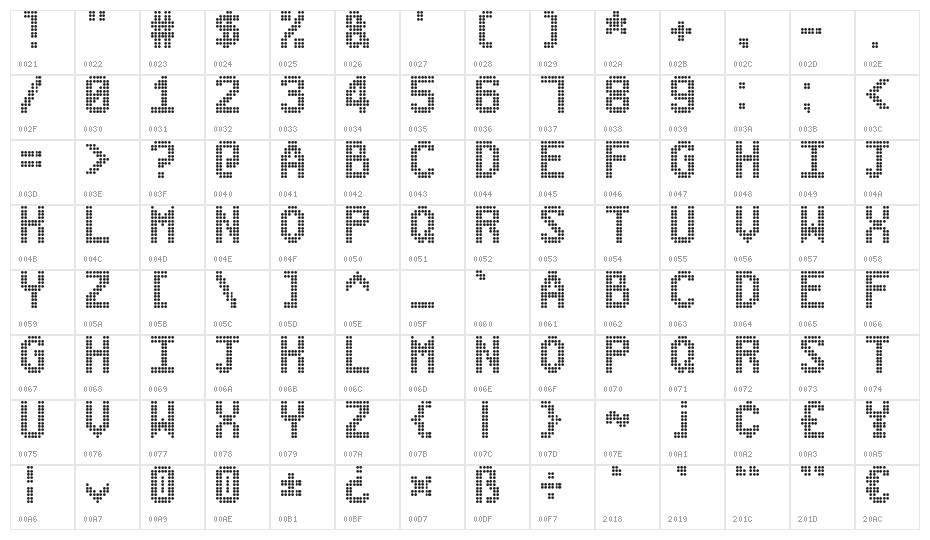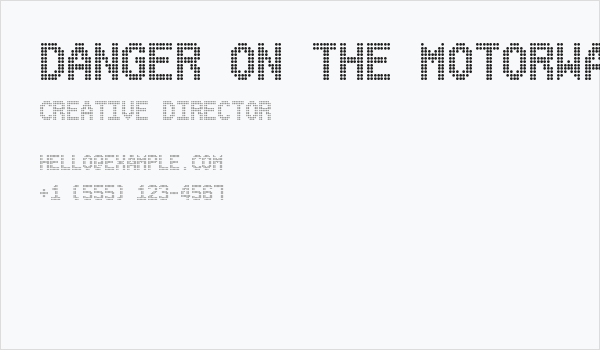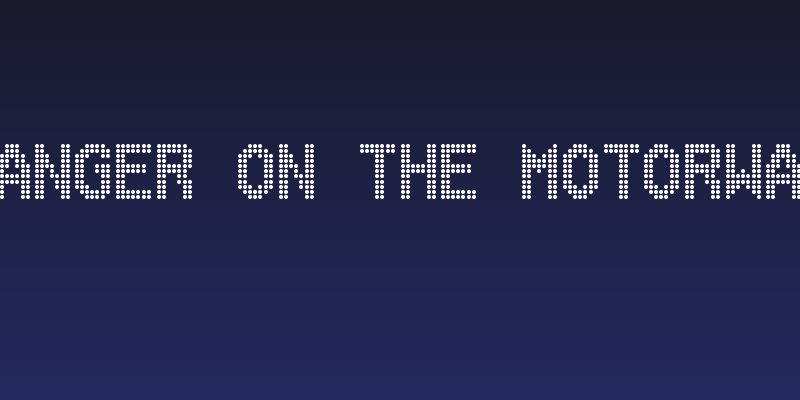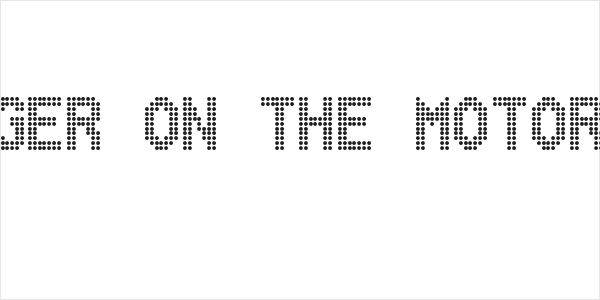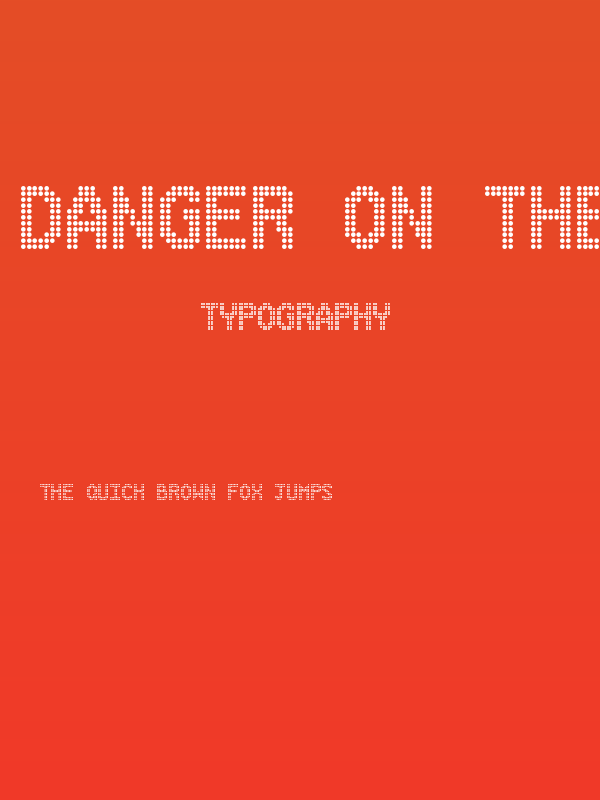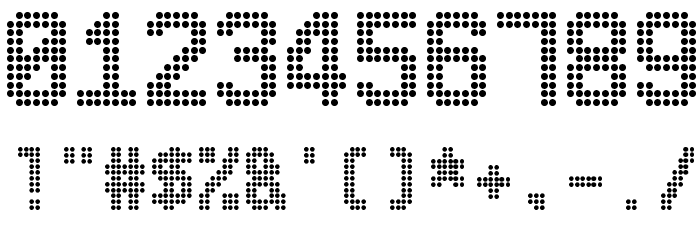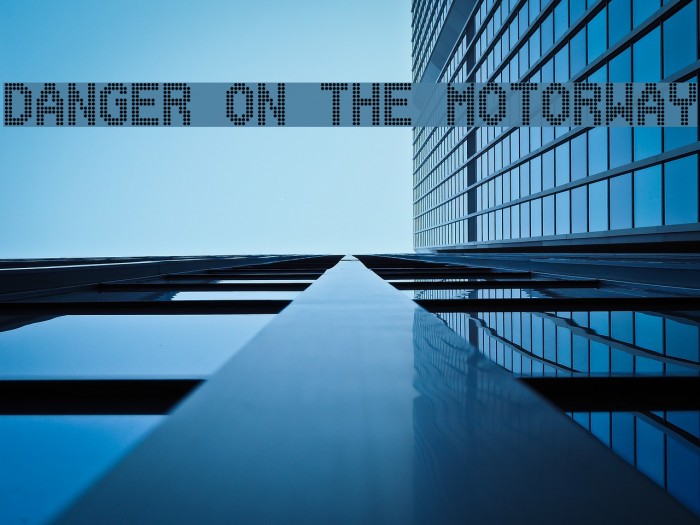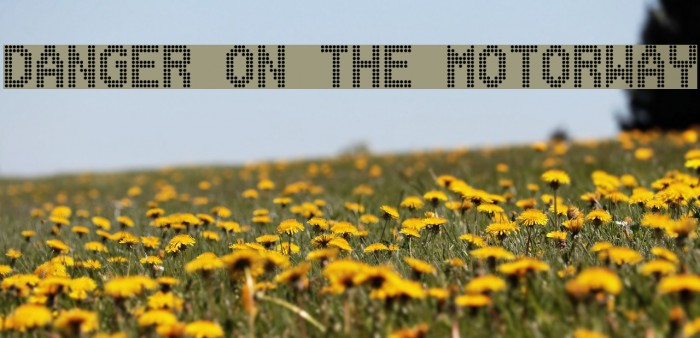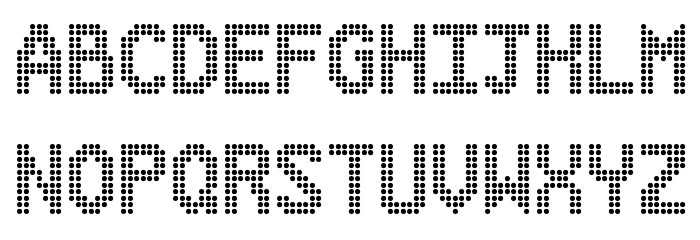
Danger on the Motorway Font
Danger on the Motorway Description
This font features a unique dot matrix design, reminiscent of digital displays and retro technology. Each character is composed of a grid of small, evenly spaced dots, creating a pixelated effect that is both modern and nostalgic. The uppercase and lowercase letters maintain a consistent height, with numerals and special characters following the same dot pattern. This font's geometric and structured appearance makes it ideal for projects that require a digital or tech-inspired aesthetic. The uniformity of the dots ensures readability while adding a distinctive visual texture.
| Use Case | Headlines, Logos, Digital Displays |
| Proposed Projects | Ideal for digital displays, tech-themed designs, retro posters, and video game graphics. |